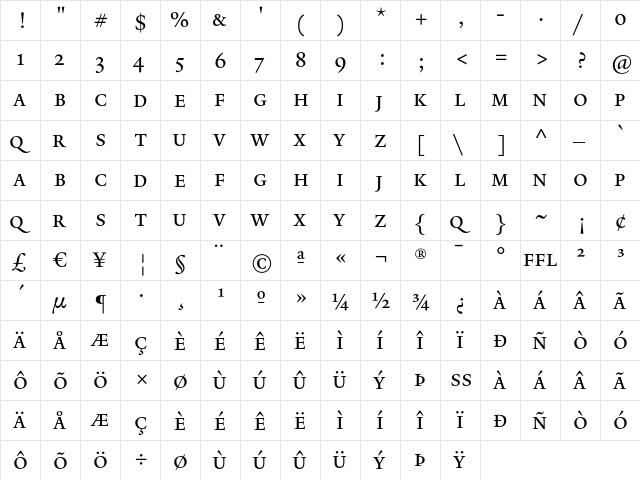
Yale WebSmallCap
Design Context for Yale Typeface
Yale is a composed and adaptable typeface that performs quietly and consistently across a wide range of design contexts.